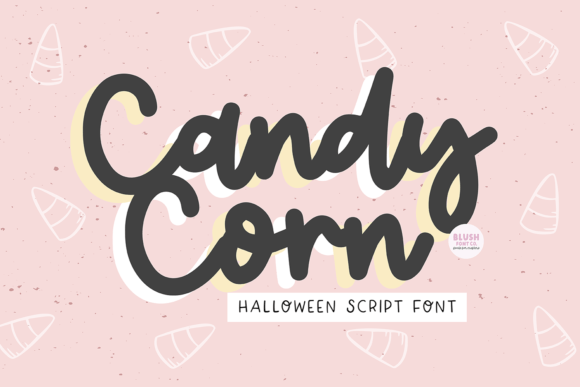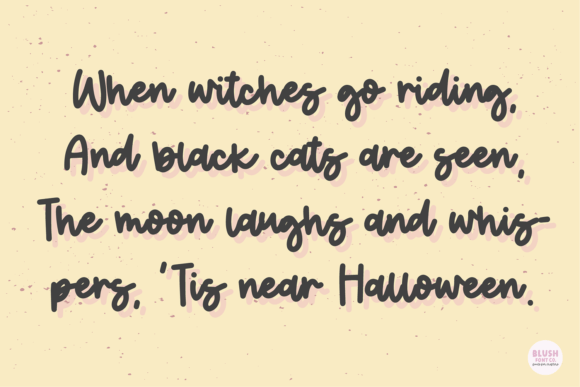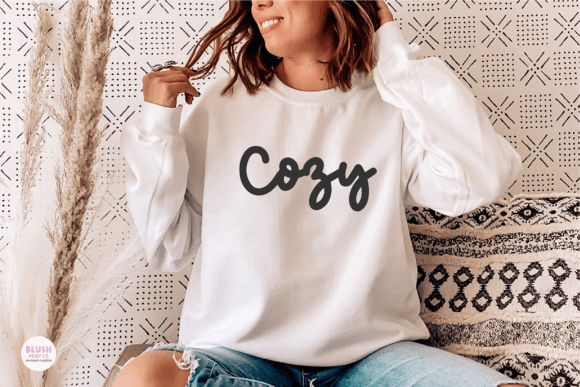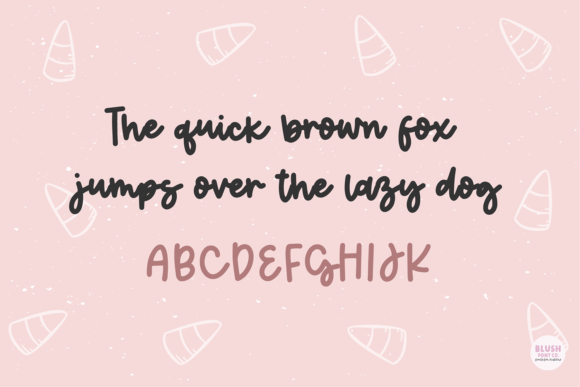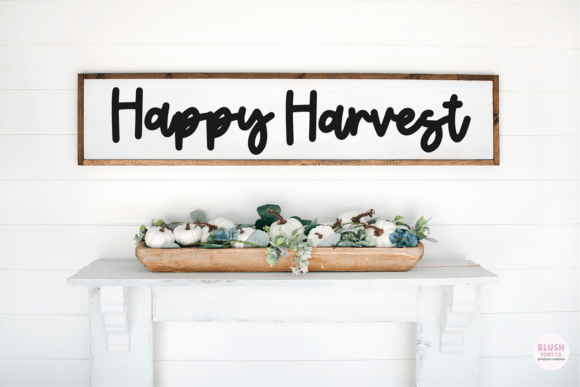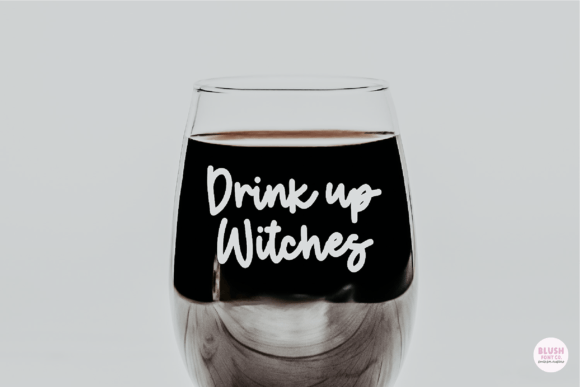
Candy Corn Font
“Candy Corn”
A Halloween Script Font
This is an installable font that will work great with your Halloween party invitations, web graphics, and other Halloween decor.